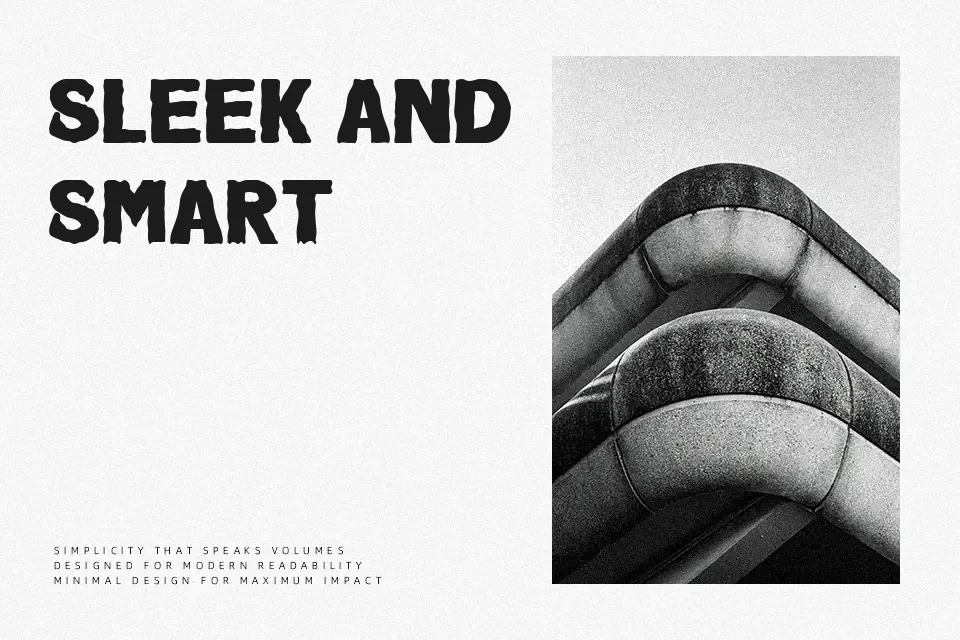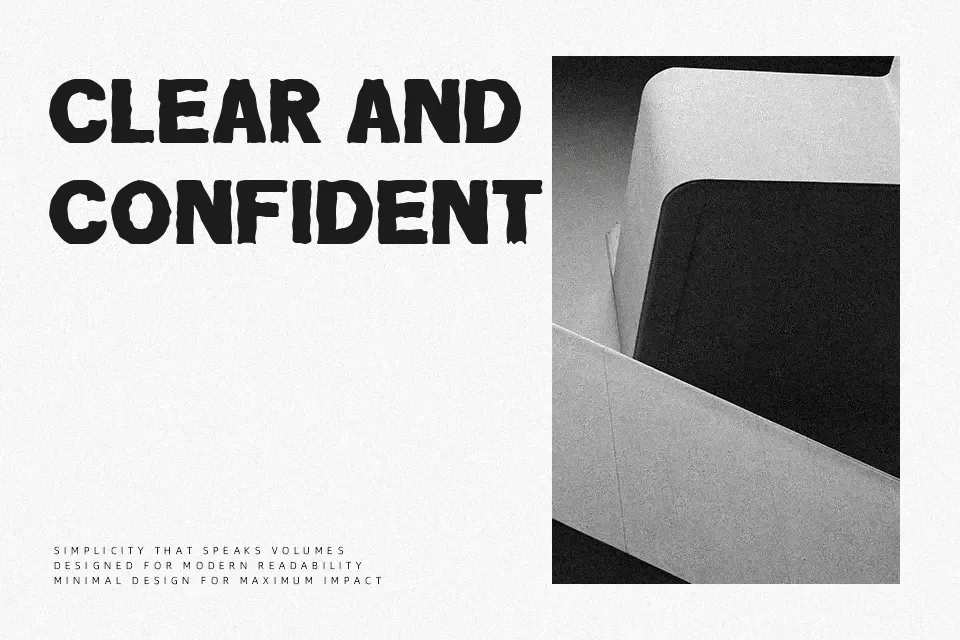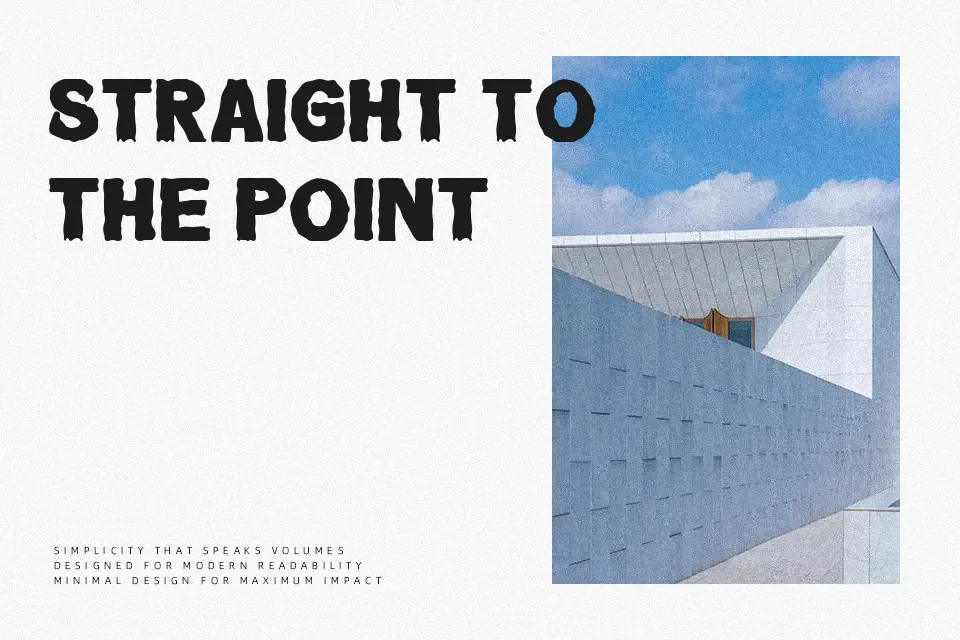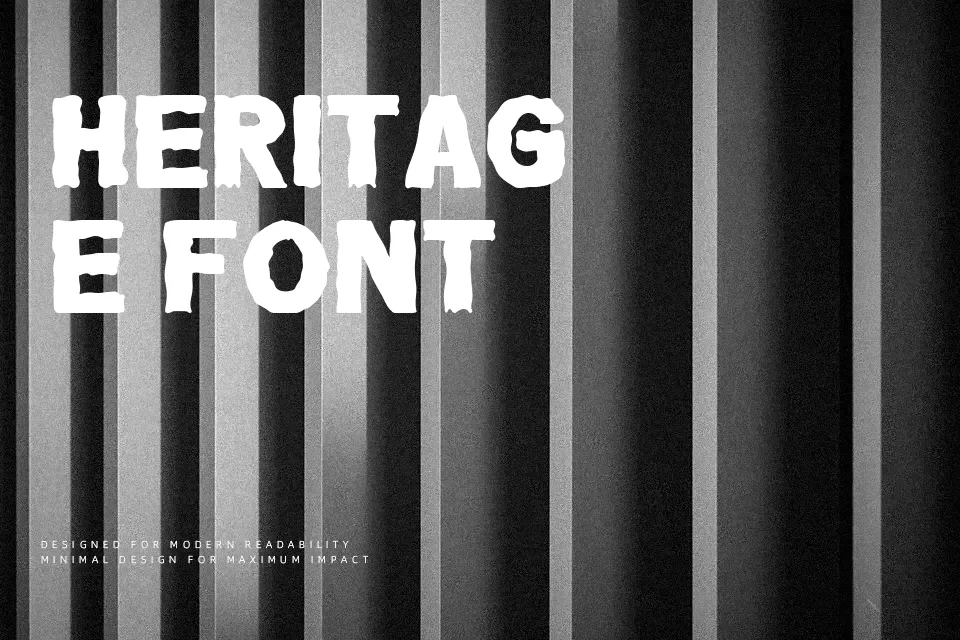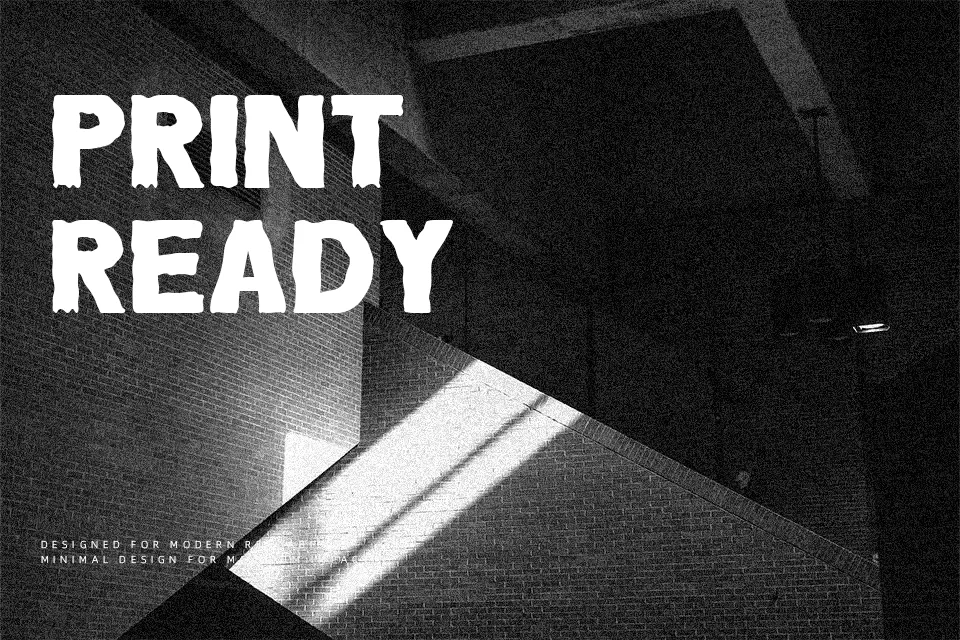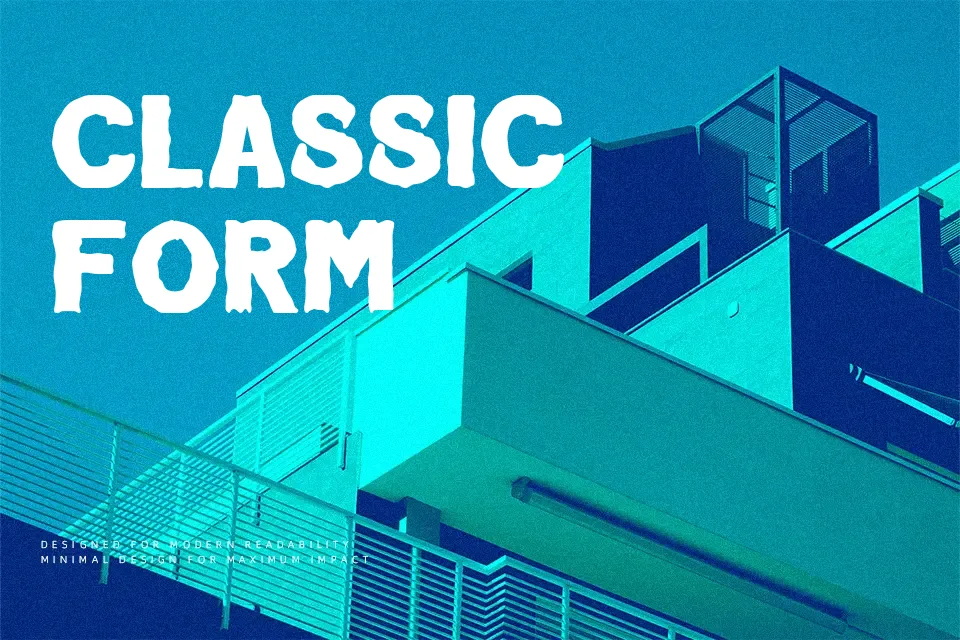
Screamous Font
Screamous Font is a bold decorative display typeface structured around heavy strokes, angular contours, and distinctive character geometry. The letterforms feature tightly controlled spacing and solid proportions that maintain crisp definition across large graphic layouts. In titling scenarios such as music festival posters, urban streetwear graphics, and product packaging, the design offers immediate graphic distinction. However, the heavy visual weight and stylized glyph contours make continuous reading uncomfortable in dense editorial environments. Small captions and long paragraphs quickly lose legibility due to the compact counters. For standalone wordmarks and punchy headlines, the typeface delivers dependable visual punch without sacrificing structural stability.
Best For: music festival posters, streetwear apparel graphics, product packaging headers, gaming merchandise logos
Not Ideal For: continuous body text, dense corporate documents, mobile app interface labels, small print captions